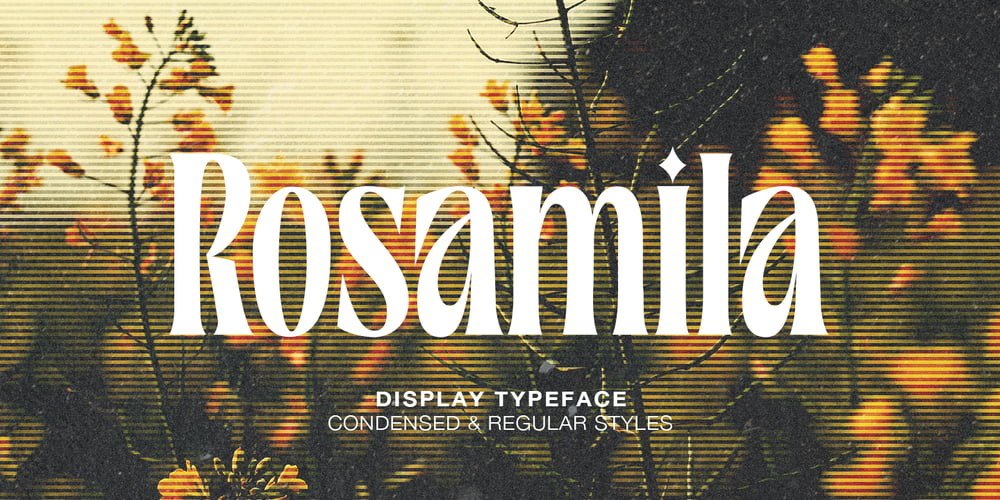
Rosamila Font Family was designed by Yur Lis and published by Stripes Studio. Rosamila contains 2 styles and family package options. Rosamila Display is a stylish serif with beautiful ligatures. Available in two styles: Normal and Expanded fonts. Designed with clean and high contrast. Add interest with adding beautiful ligatures to make your typography truly unique. Perfect for anything your creativity. To access the Opentype Ligatures you will need software that supports Opentype features in fonts and also PUA unicodes support for other software.